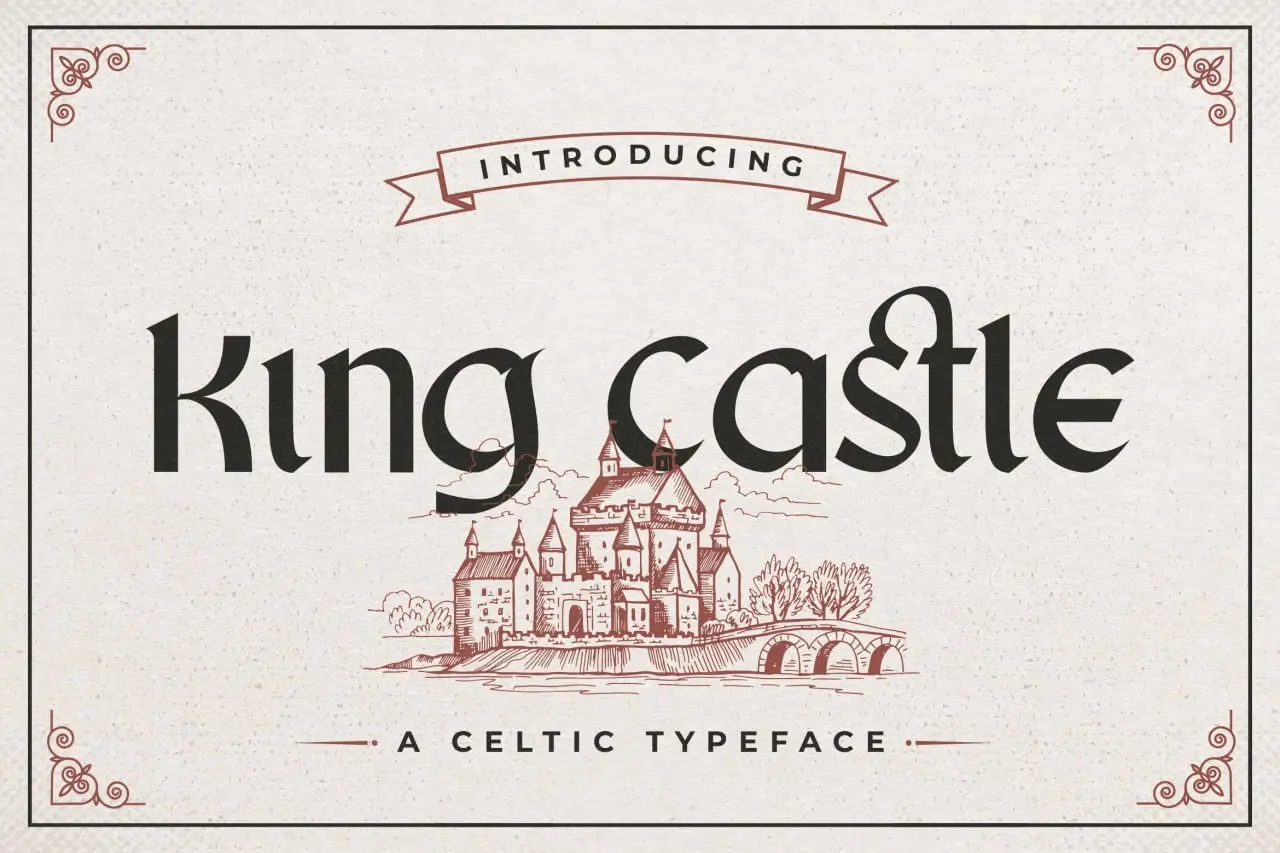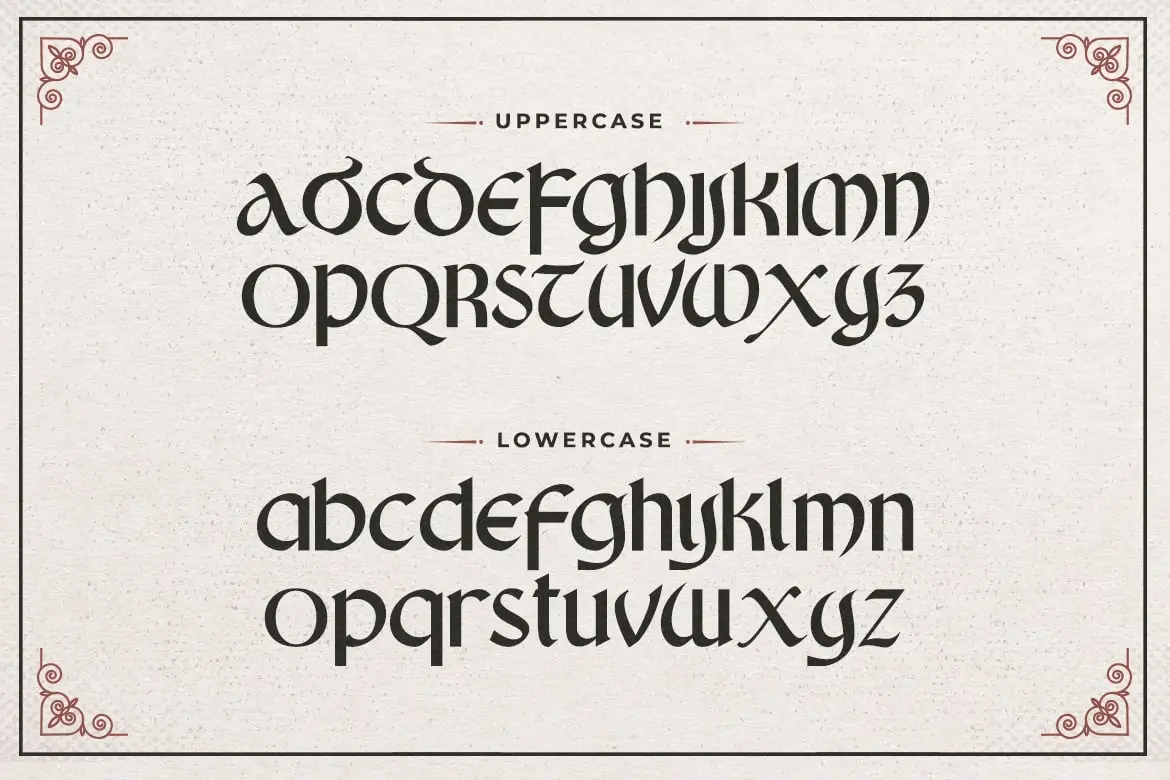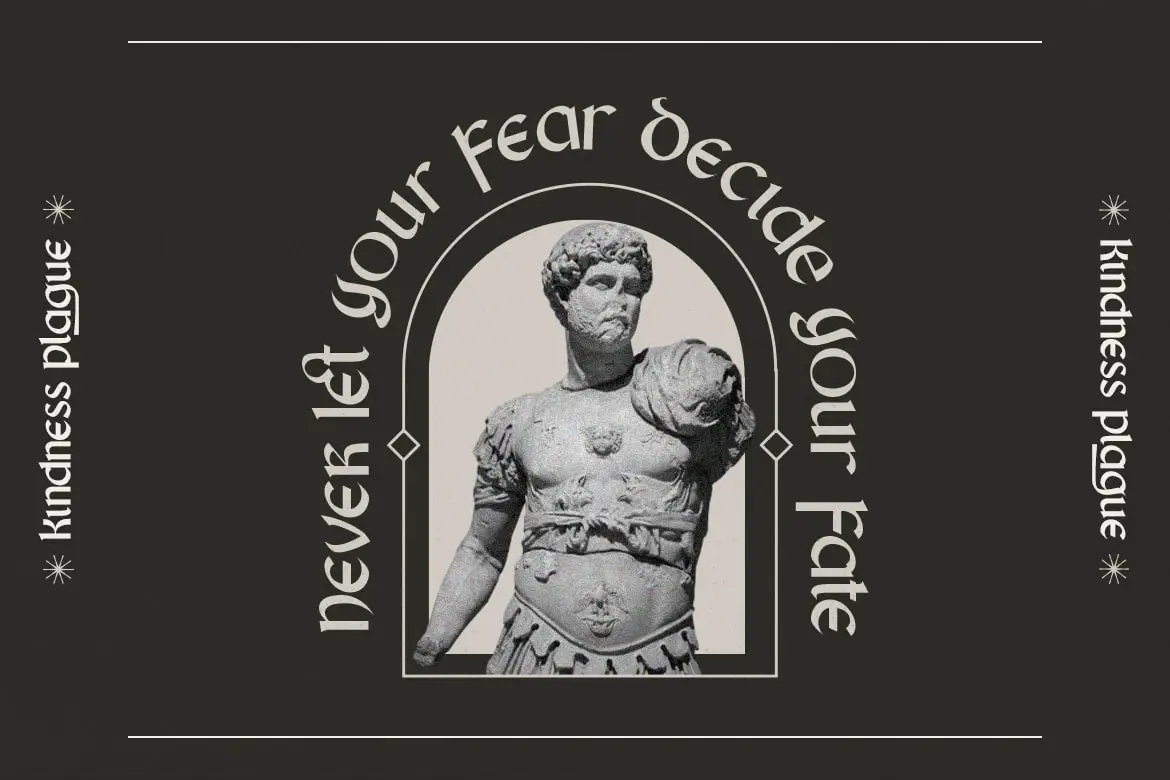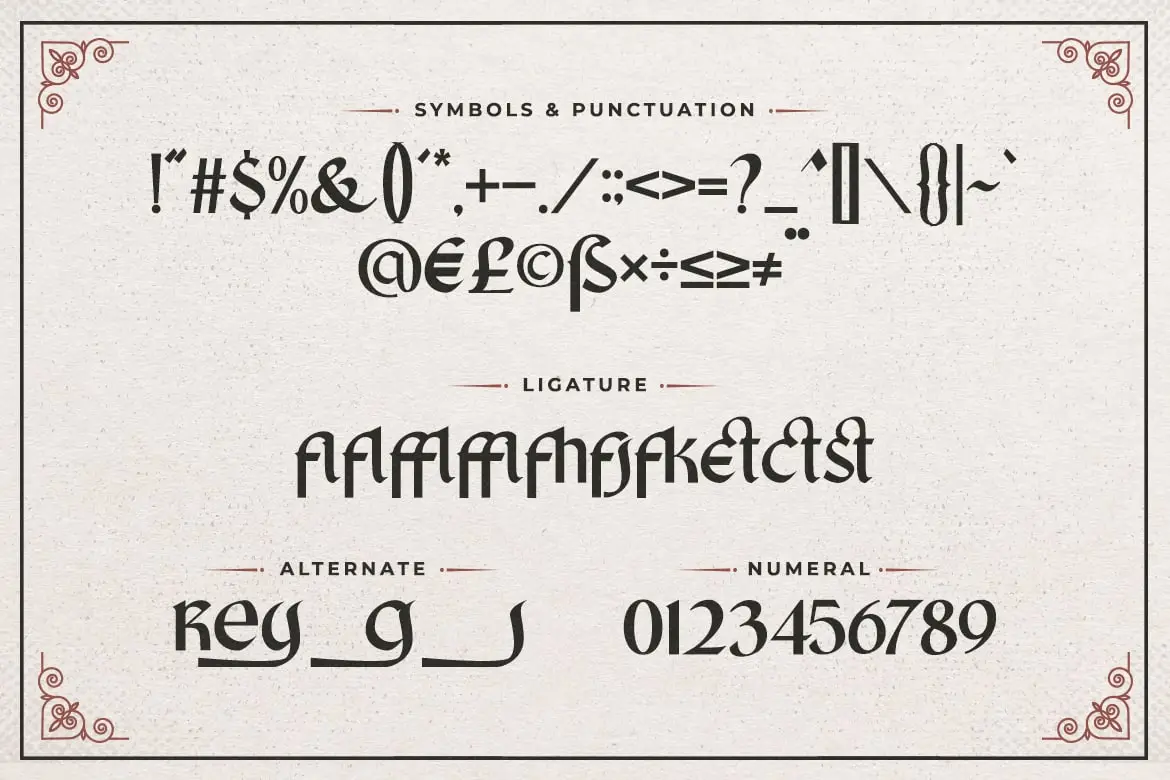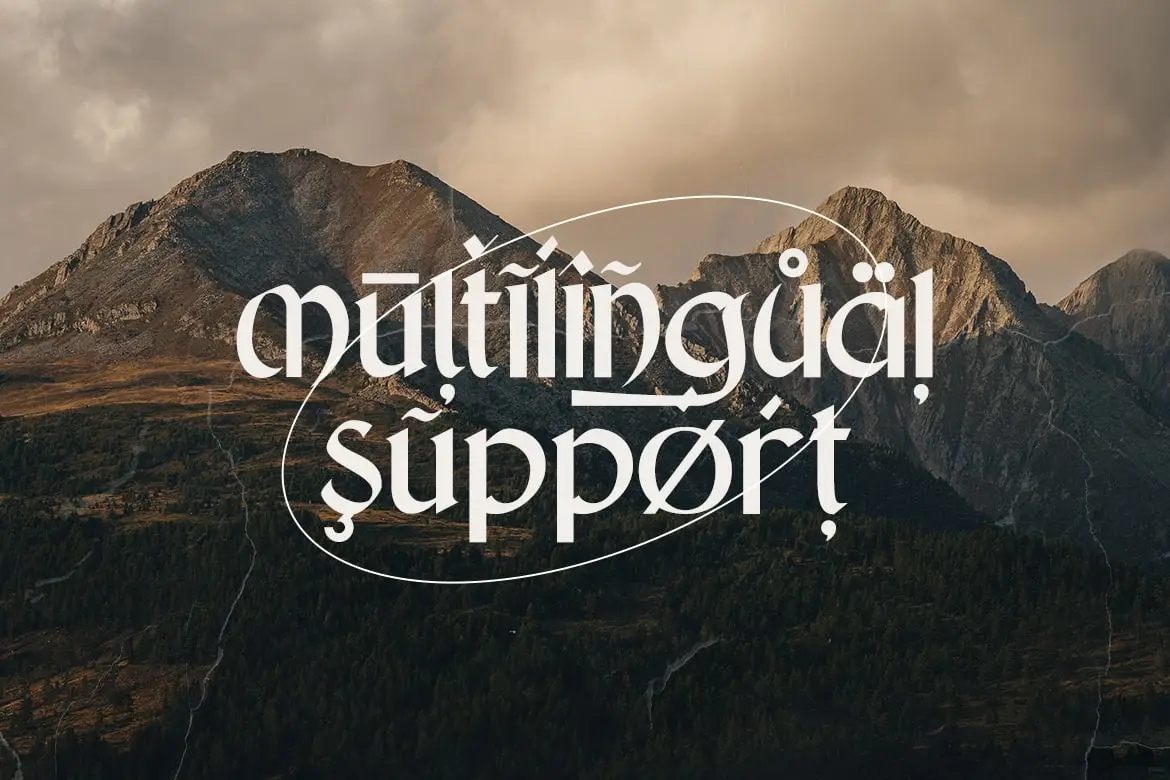
Typefactoryco-King Castle (Celtic Typeface)
Introducing the King Castle Celtic Typeface, a stunning font that captures the essence of Celtic design. This typeface features intricate, ornate letterforms that bring a touch of history and elegance to your projects.
• Unique Celtic-inspired design
• Supports a wide range of languages
• Easy to read while maintaining artistic flair
• Ideal for branding, logos, and signage
• Perfect for print materials such as invitations and posters
• Great for digital projects including websites and social media graphics